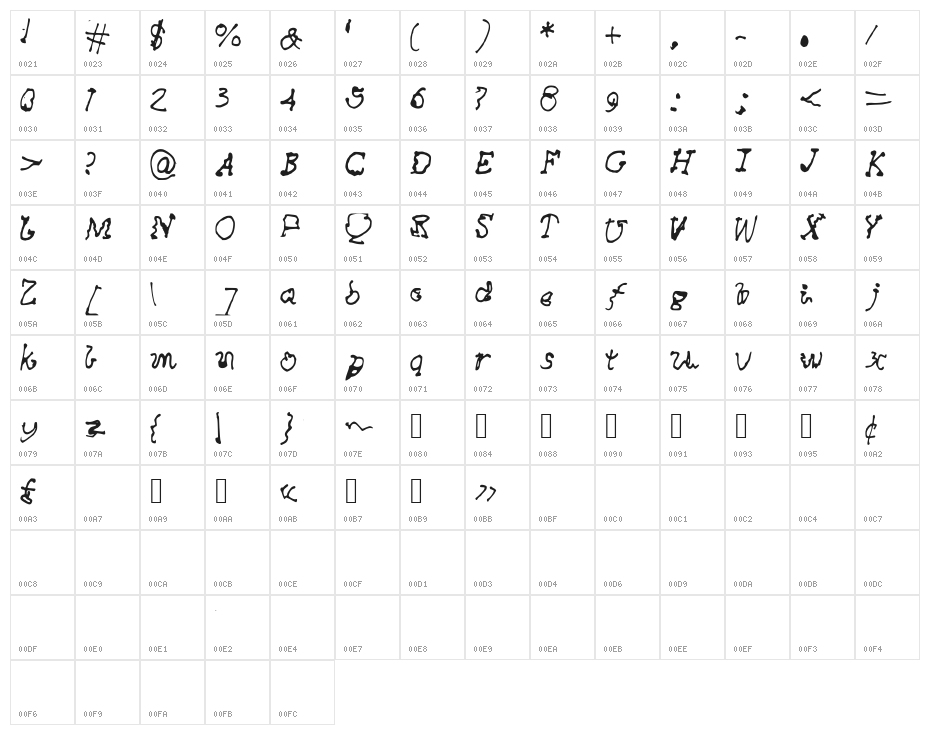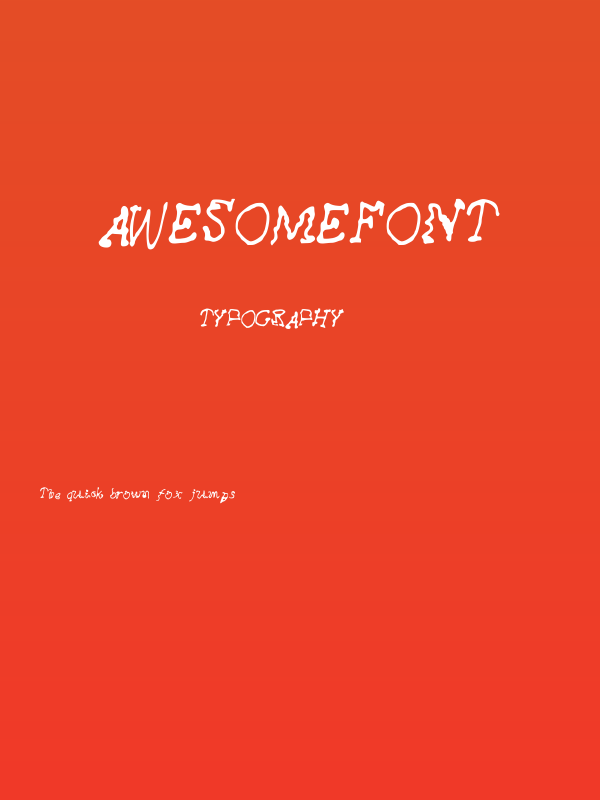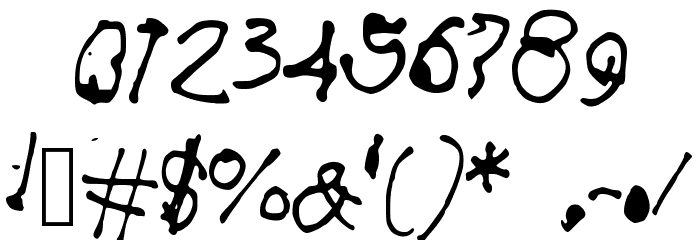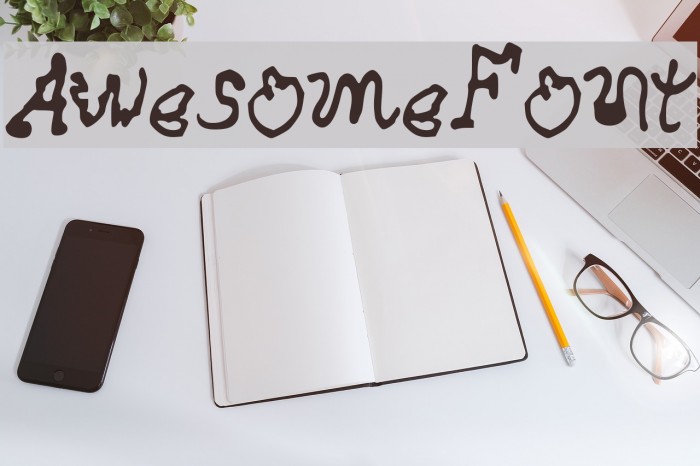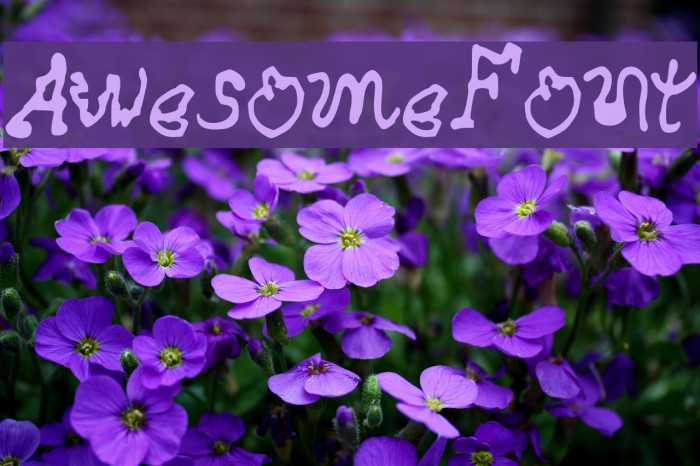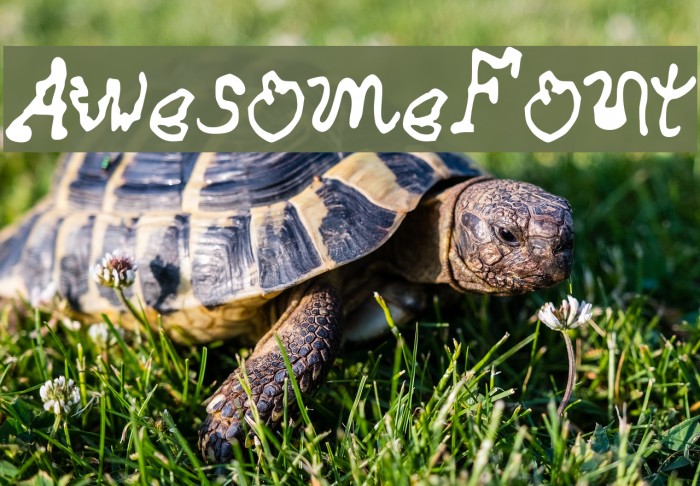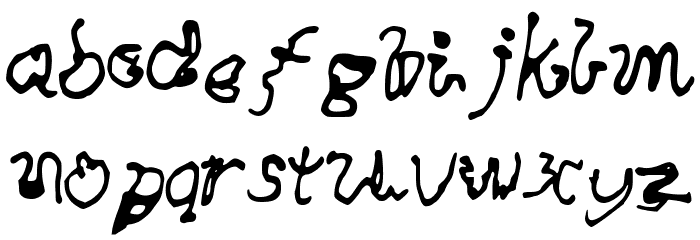
AwesomeFont Font
AwesomeFont Description
This font features a highly decorative and artistic style, characterized by its bold, irregular strokes and playful, almost whimsical appearance. The letters have a hand-drawn quality, with varying thickness and a dynamic, fluid form that suggests movement. The uppercase and lowercase letters maintain a consistent style, with exaggerated curves and loops that give the font a unique personality. The numbers and special characters follow the same artistic theme, making the font suitable for creative and expressive design projects. Its distinctiveness makes it stand out, ideal for capturing attention and conveying a sense of creativity and individuality.
| Use Case | Headlines, Logos, Artistic projects |
| Proposed Projects | Ideal for artistic posters, creative branding, unique invitations, and expressive headlines. |